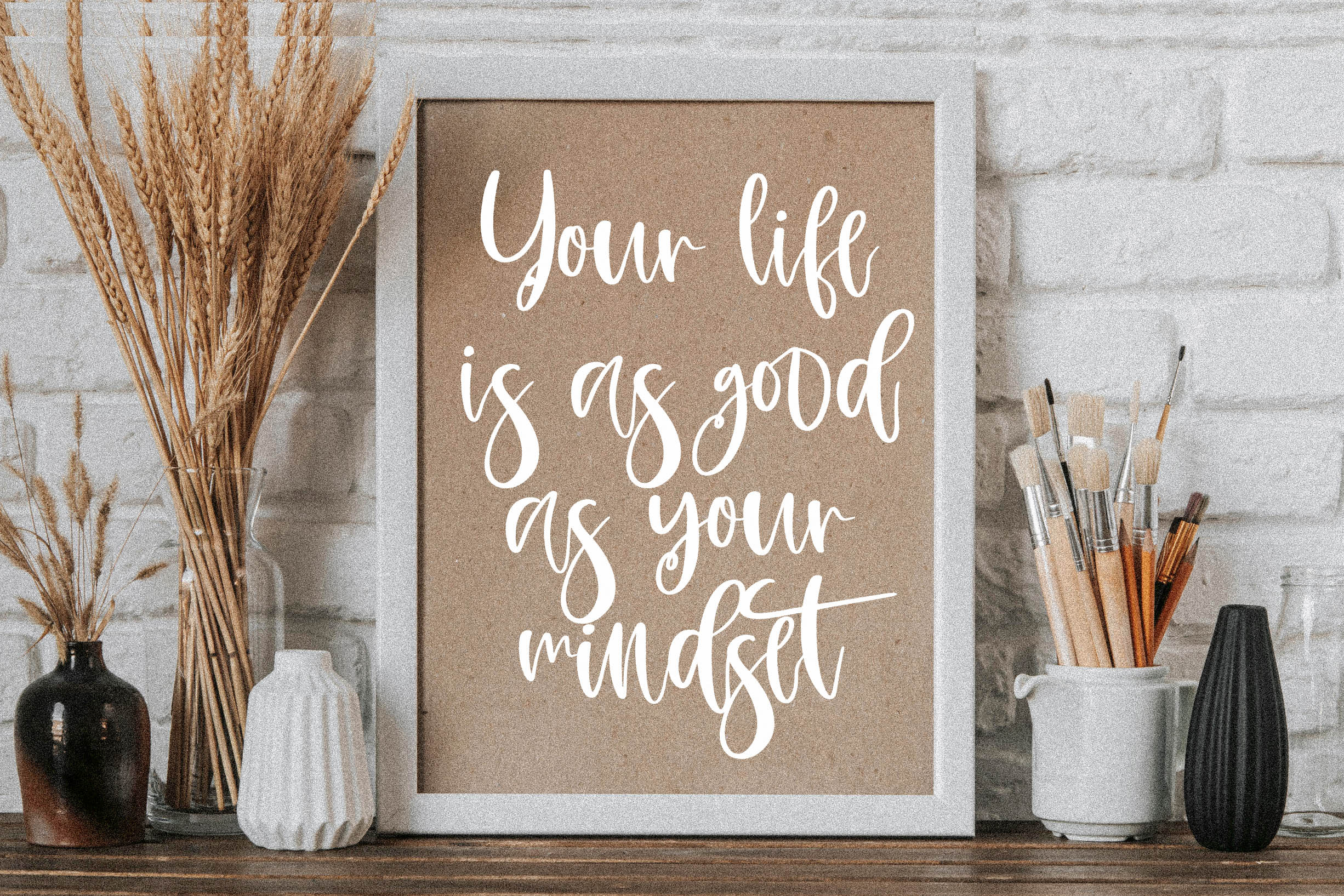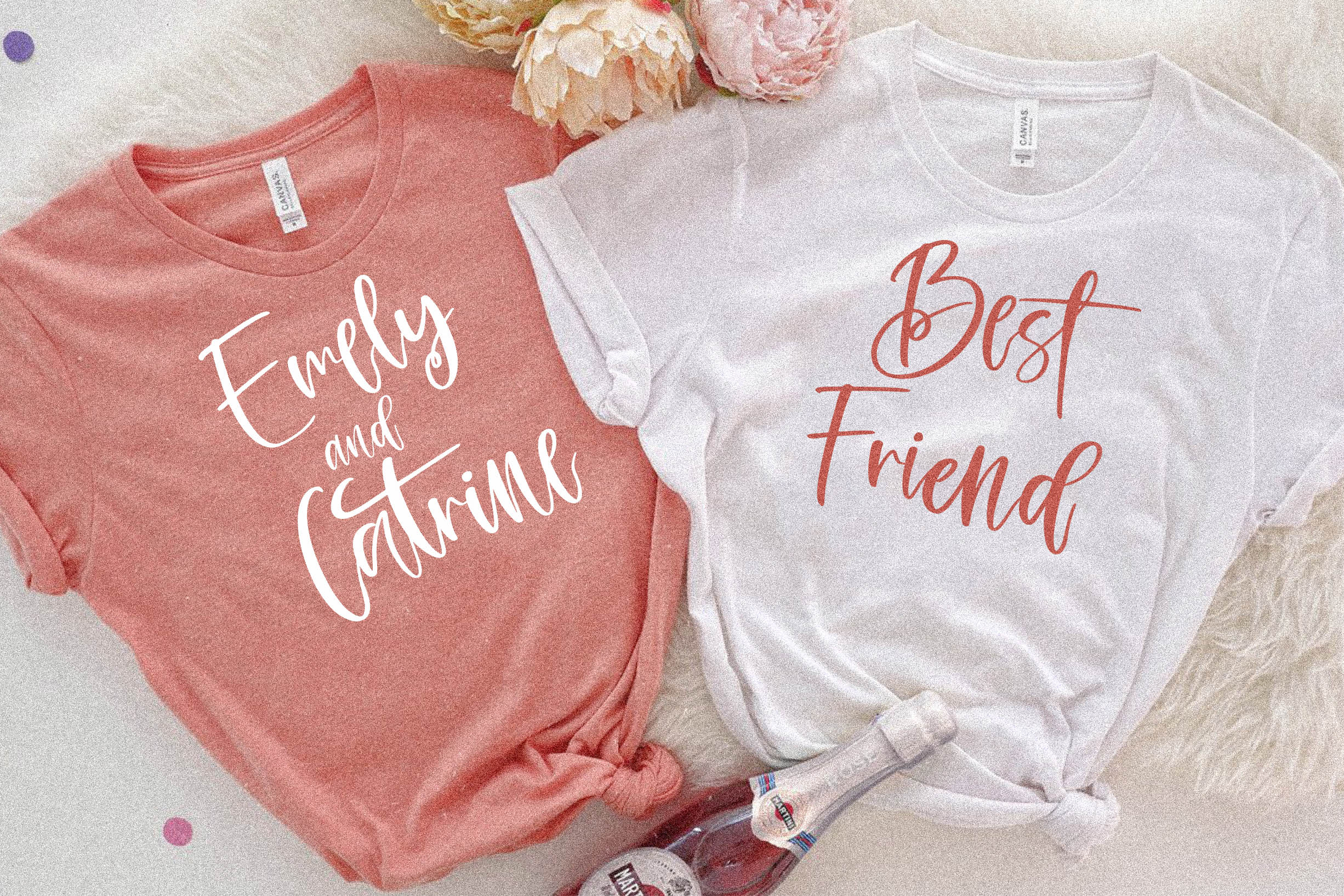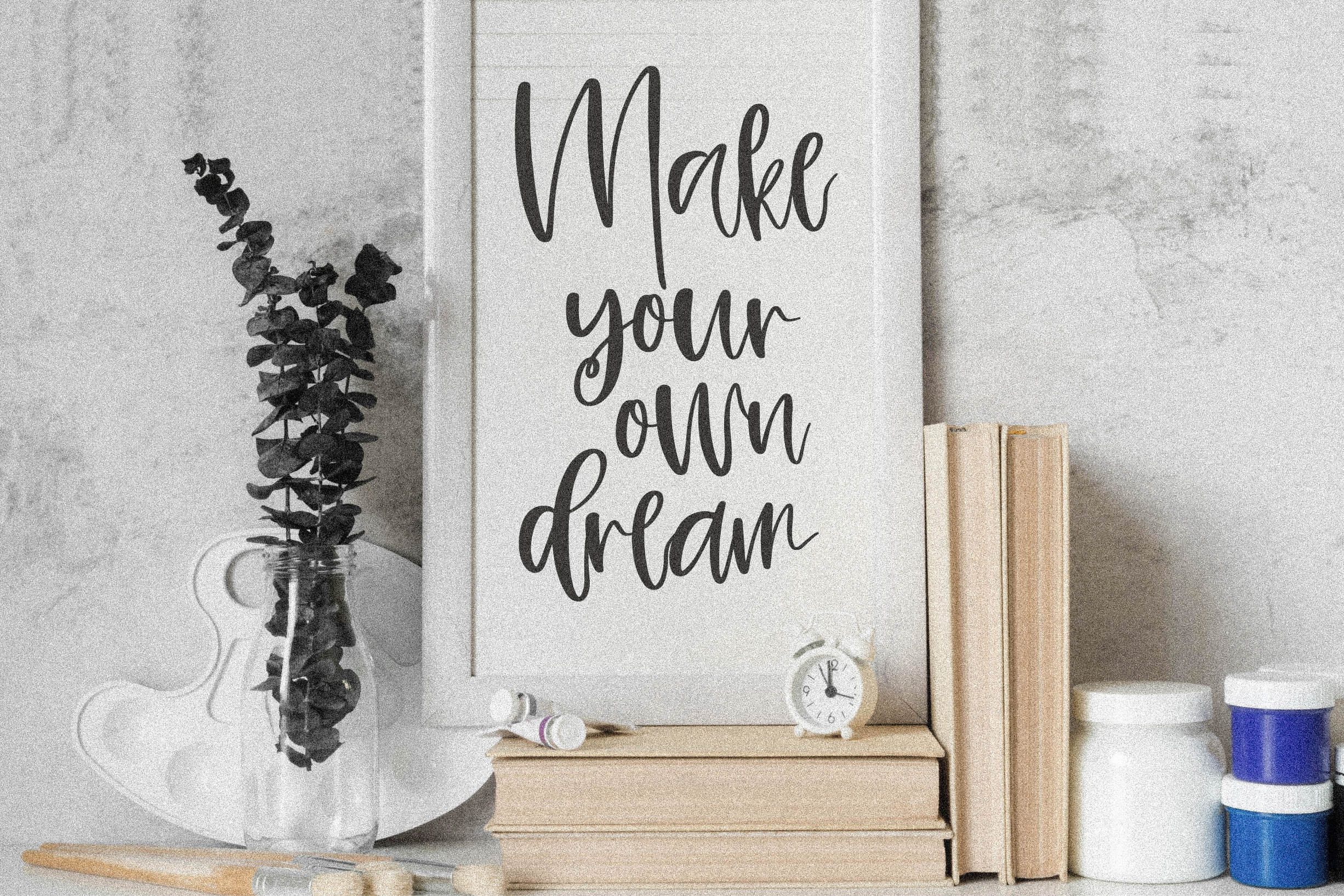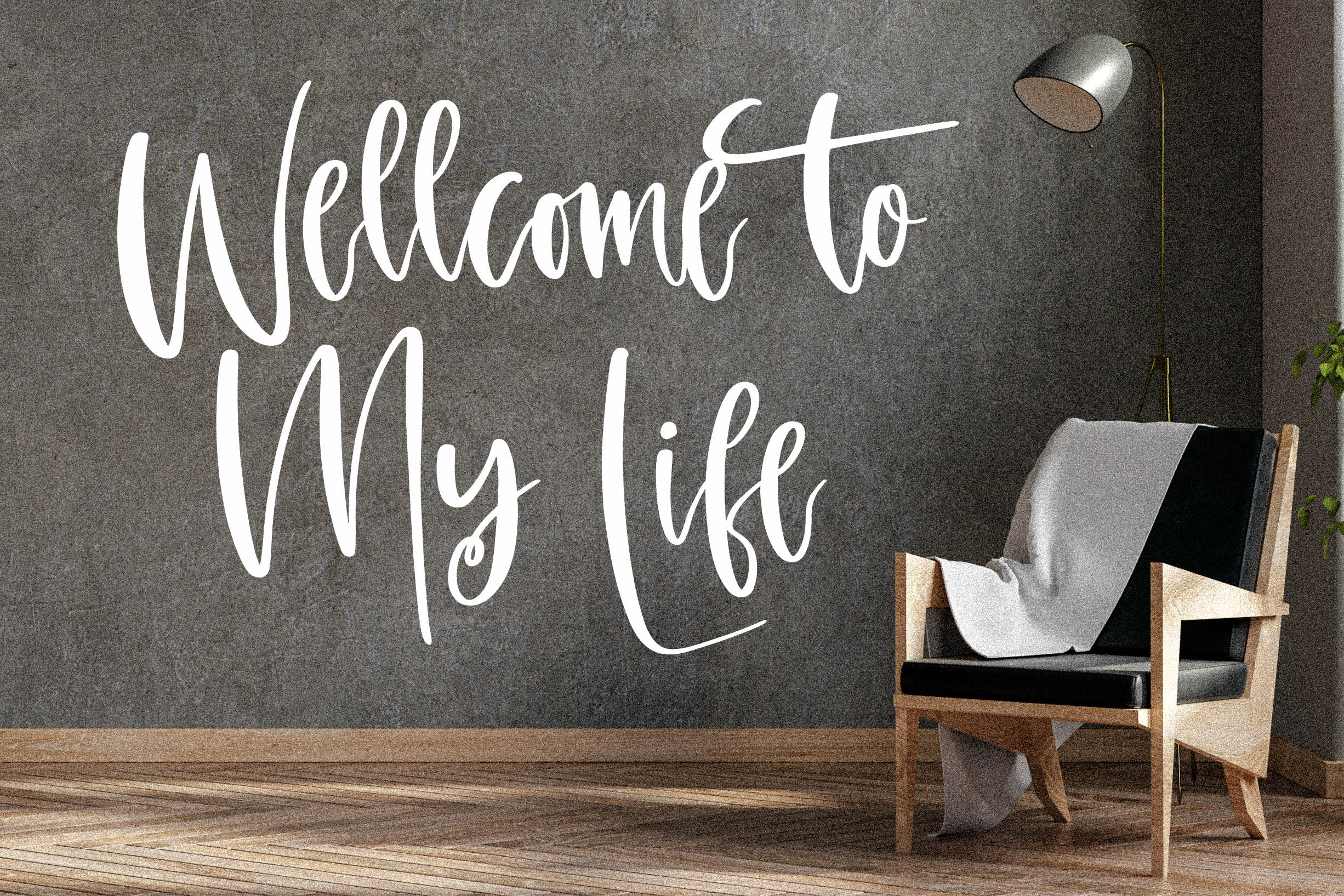
Amsterdam Listing Font
Amsterdam Listing Script Font
This is a handwritten font, suitable for any projects such as: logos, branding projects, homeware designs, product packaging, mugs, quotes, posters, shopping bags, t-shirts, book covers, name card, invitation cards, greeting cards, label, photography, watermark, special events, and all your other luxury projects that need a handwritten taste.